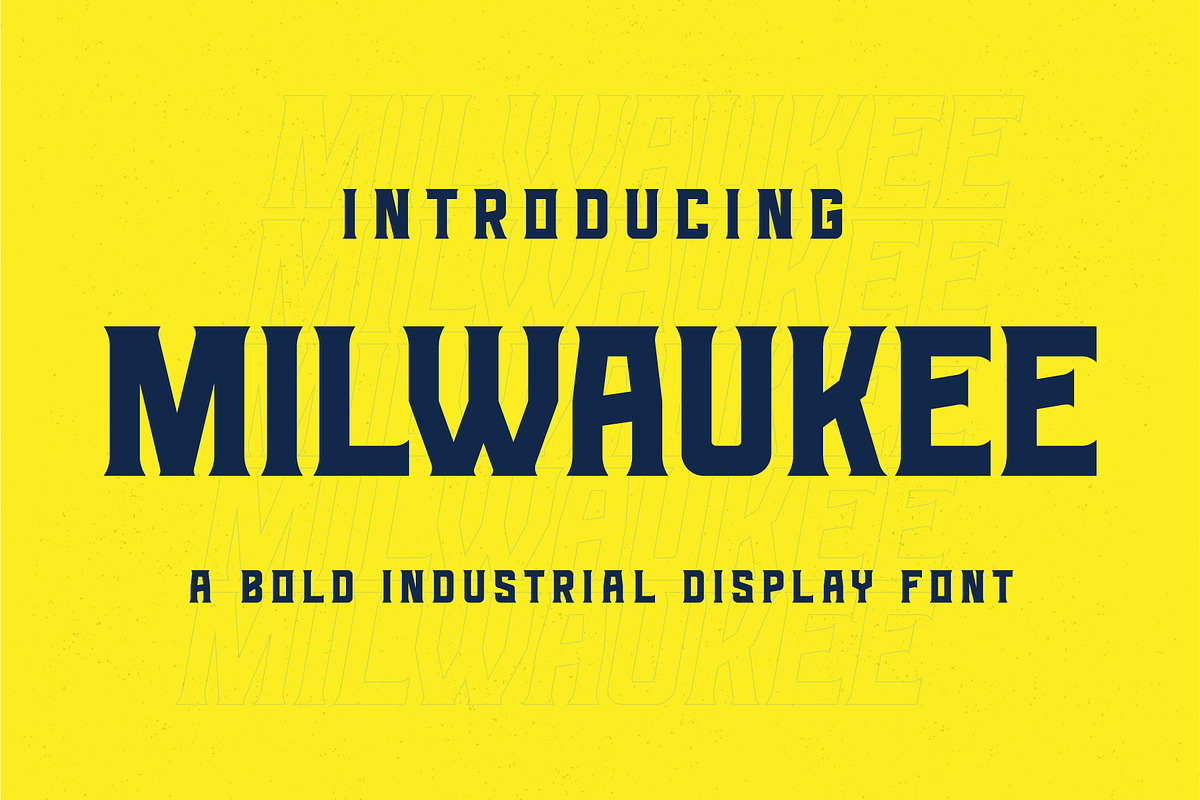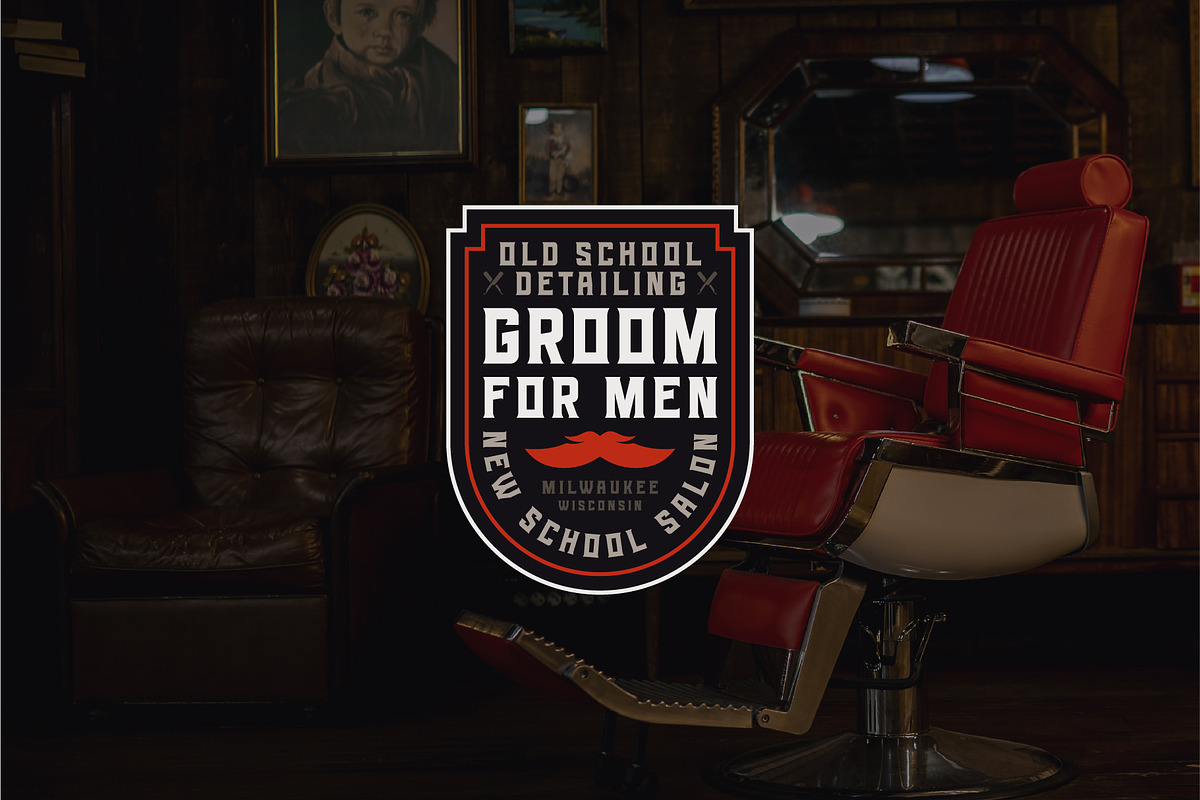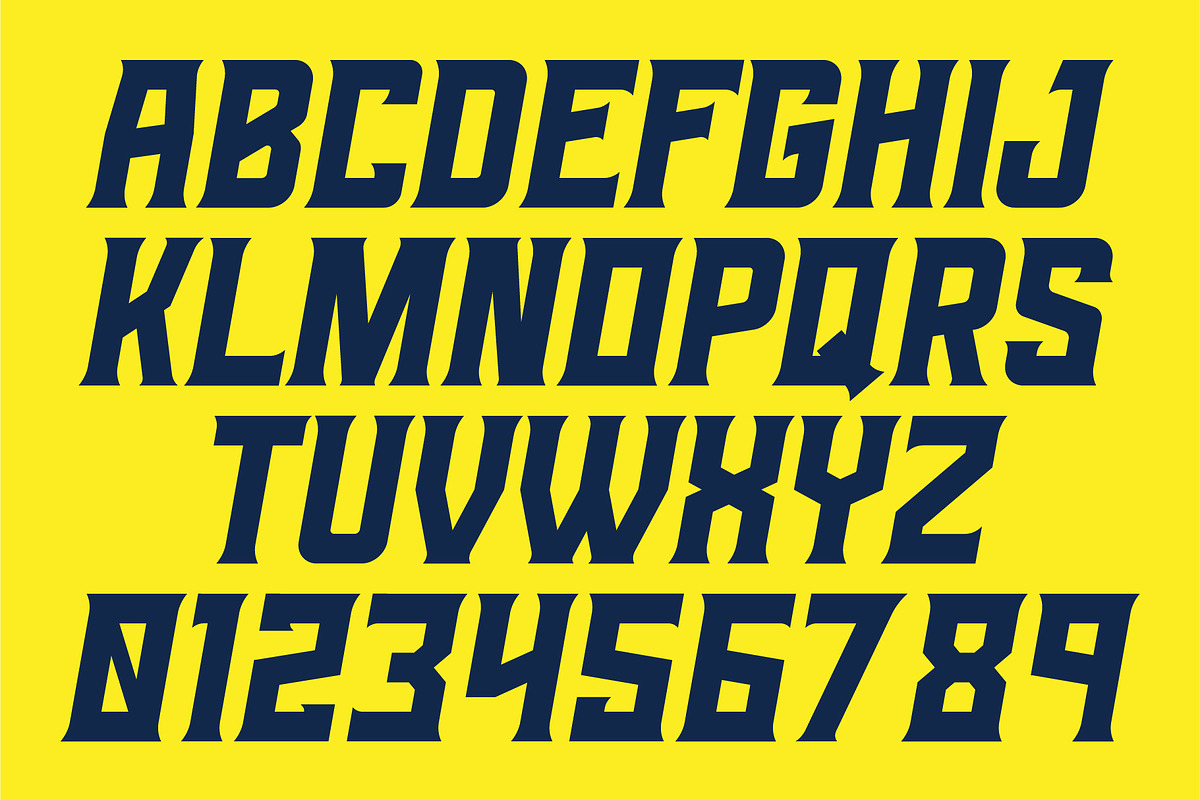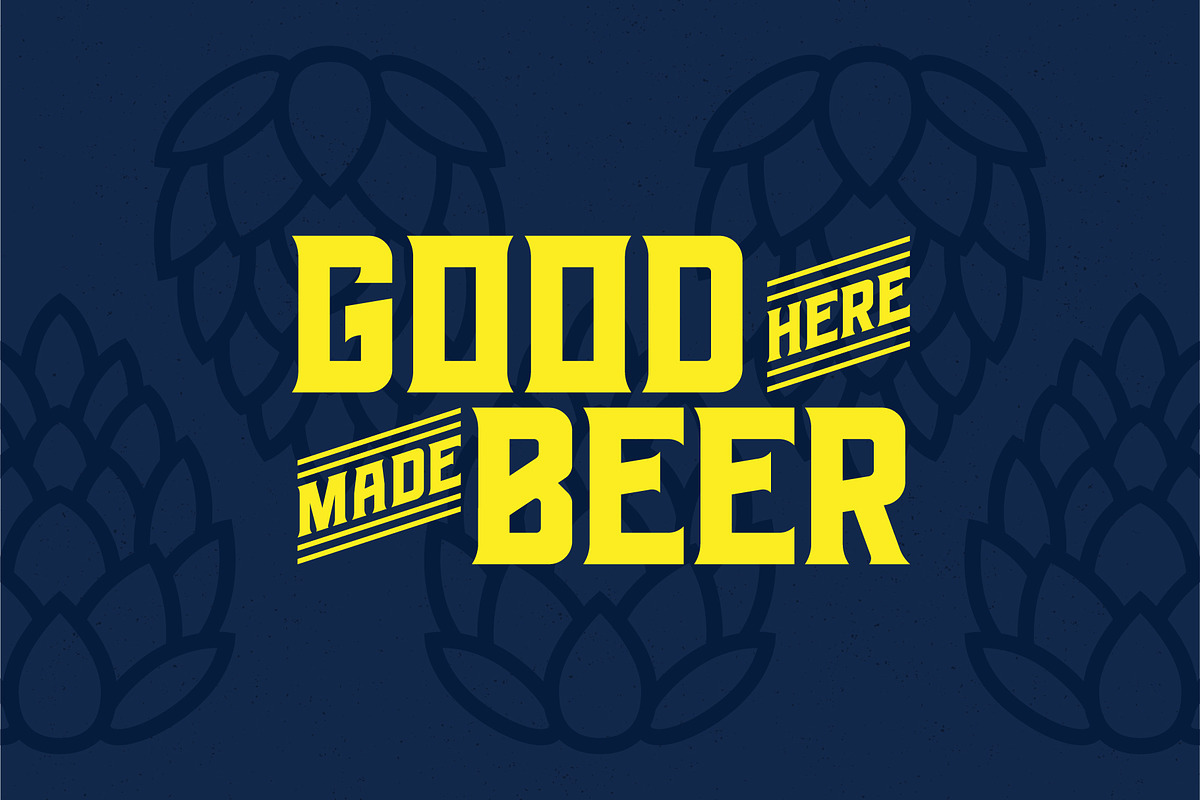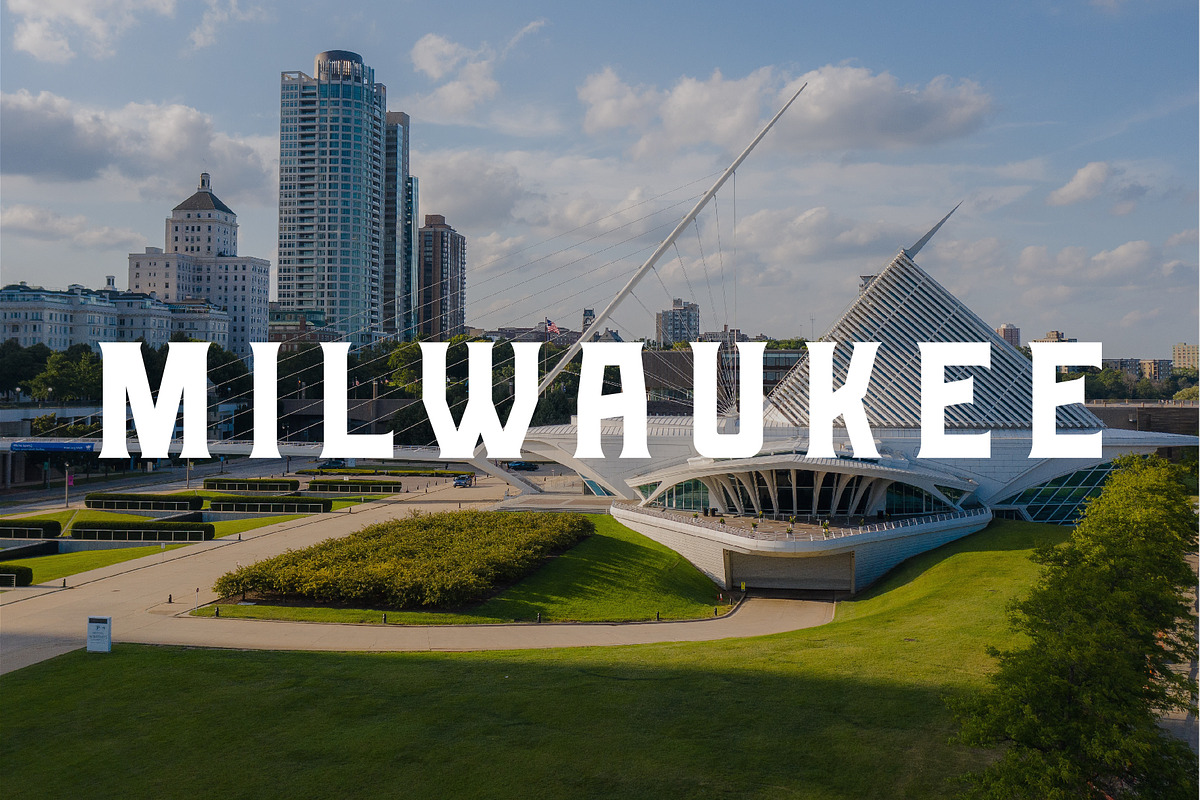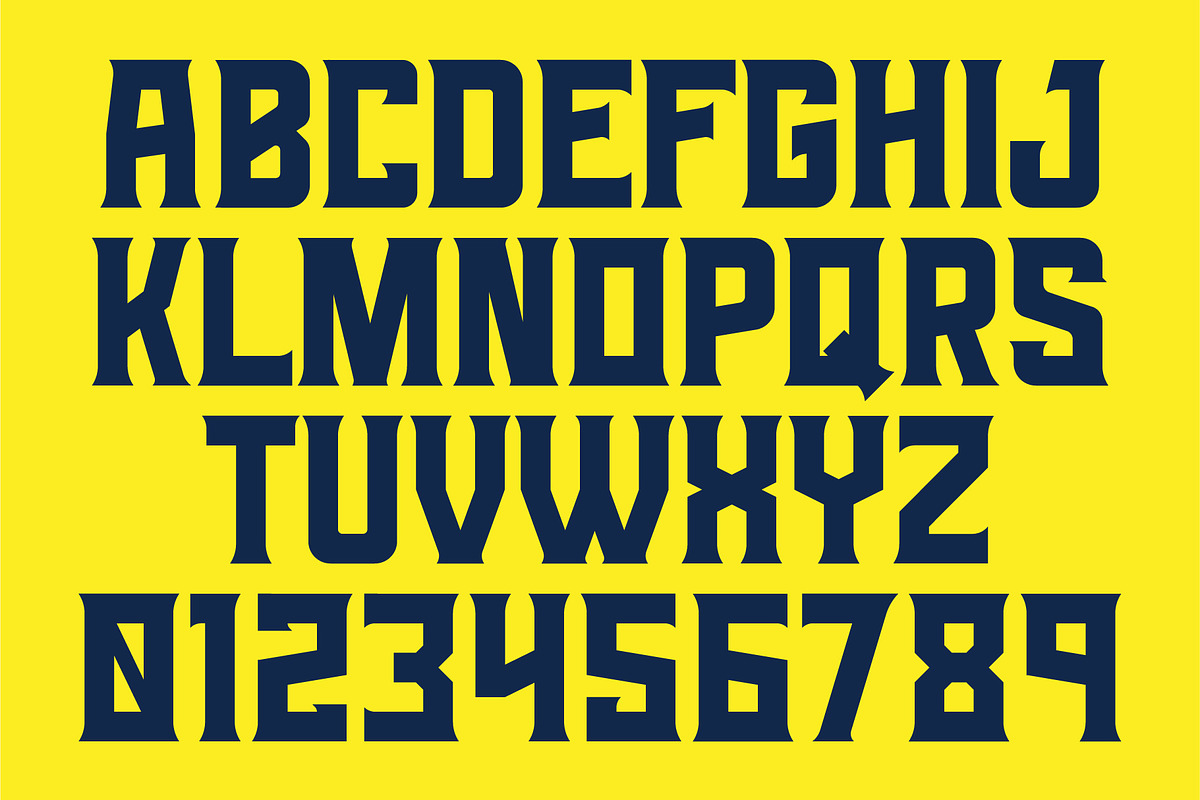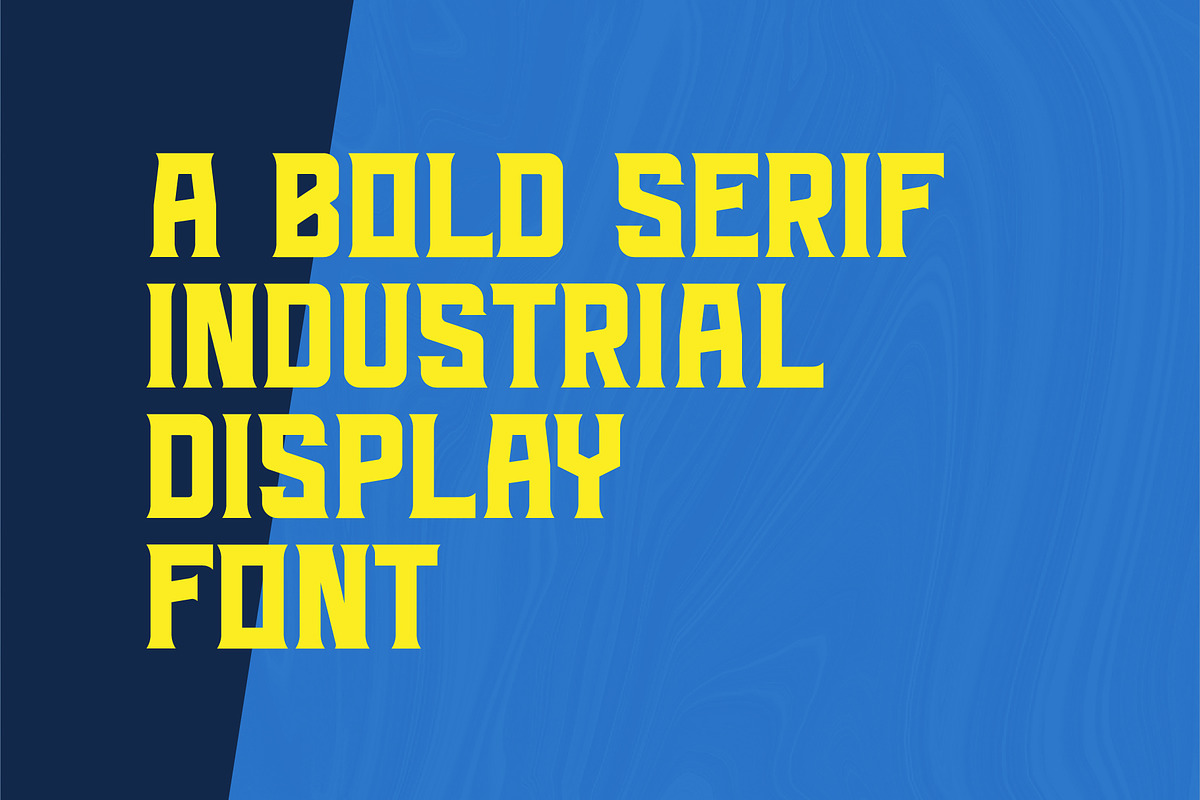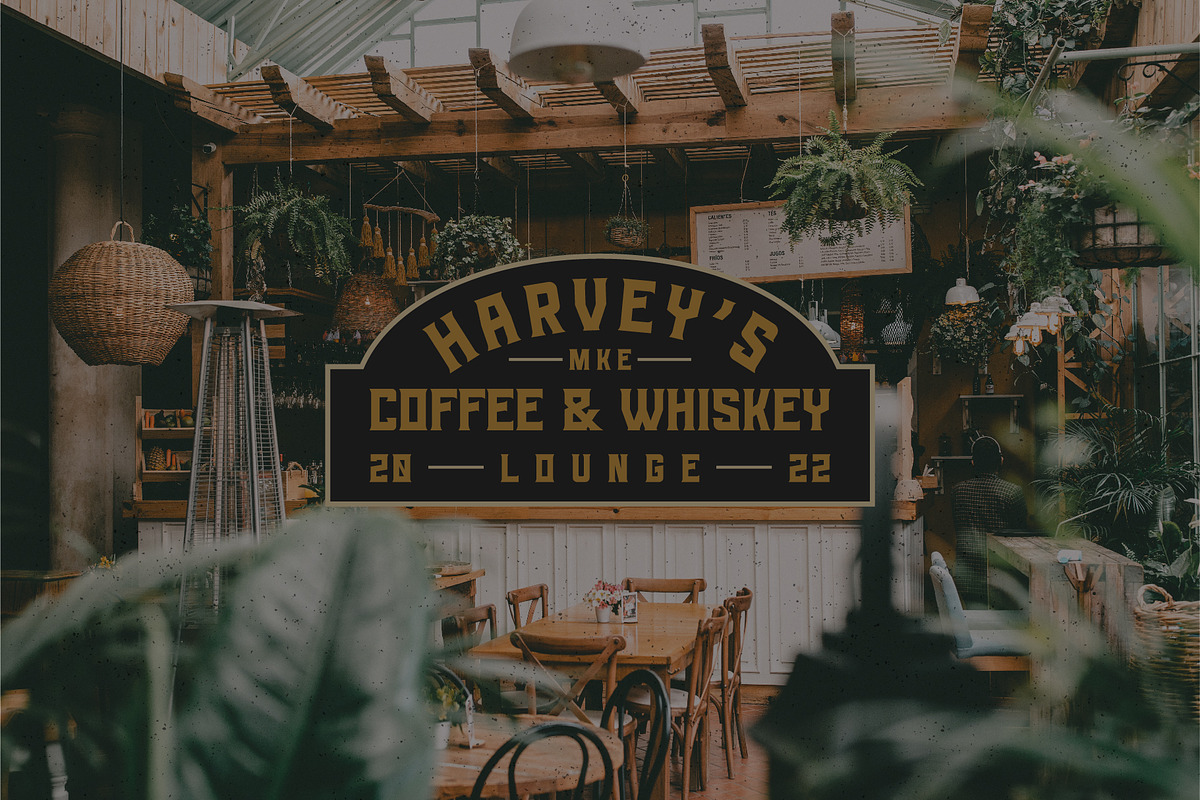
MILWAUKEE – Industrial Display Font
MILWAUKEE is a bold industrial display font. This font is inspired by the industrial history of Milwaukee and vintage beer print ads. MILWAUKEE is a strong font with incredibly diverse usability. Use it in logos, packaging, labels, headlines, posters, t-shirt art, sports graphics and more!